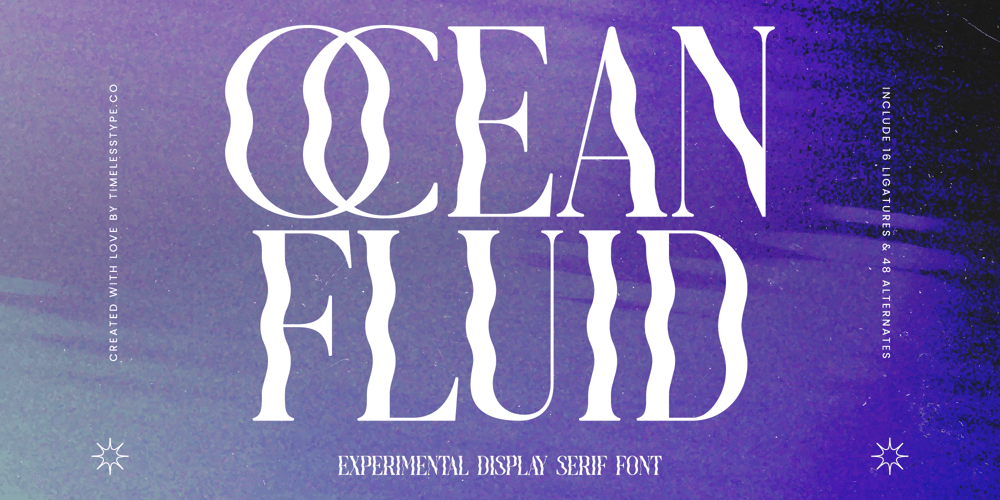
Ocean Fluid Font Family was designed by Heru Utama Putra and published by Timelesstype Studio. Ocean Fluid contains 2 styles and family package options. Ocean Fluid – Experimental Display Serif , from Timelesstype , Suitable for any projects such as: logos, branding projects, homeware designs, product packaging, mugs, quotes, posters, shopping bags, t-shirts, book covers, name card, invitation cards, greeting cards, label, photography, watermark, special events, and all your other luxury and beautiful projects that need a Luxury Serif taste.